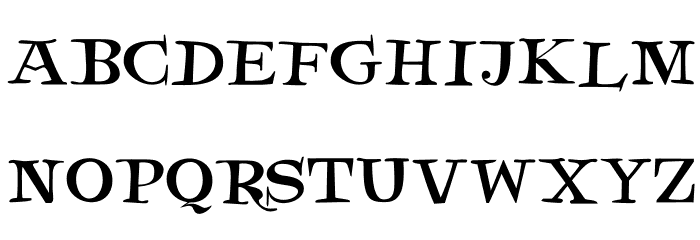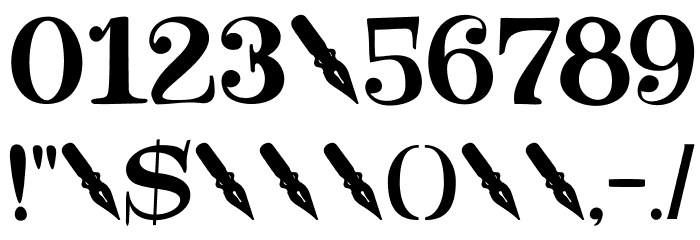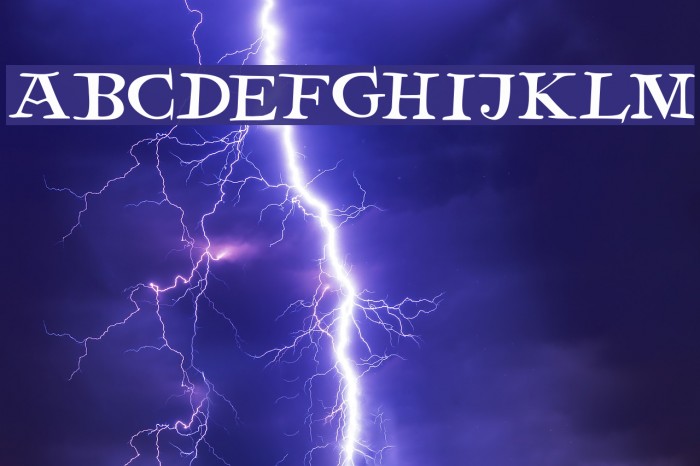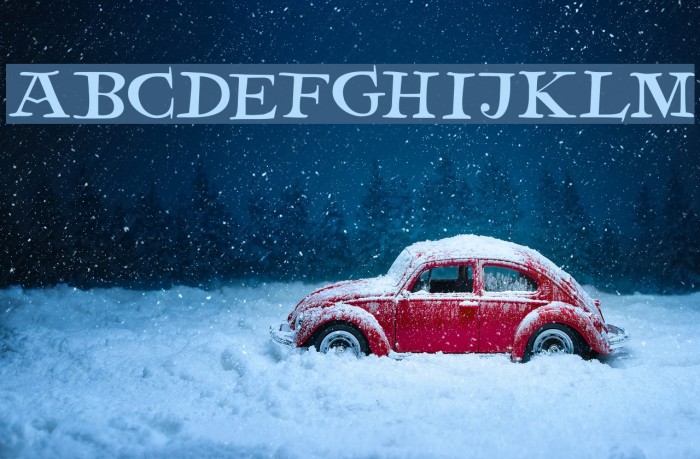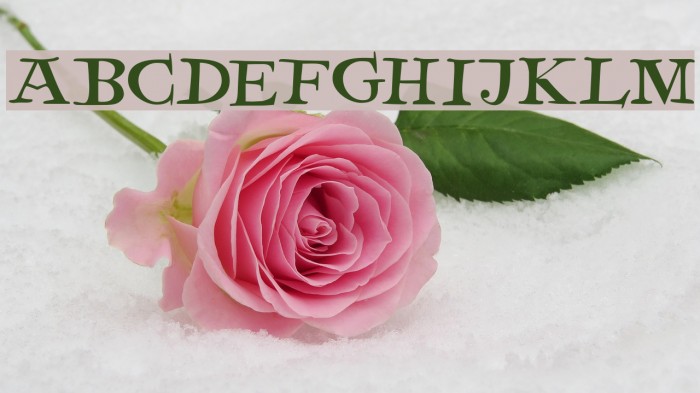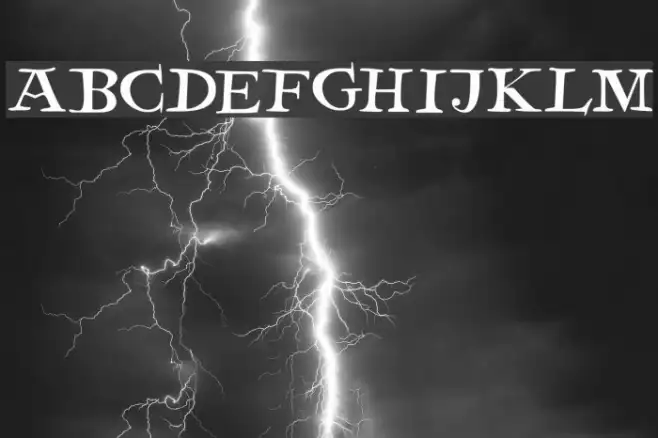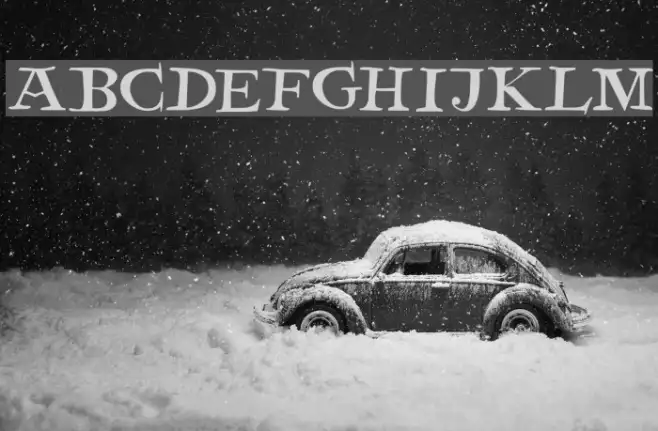
DK Henceforth Font
This font features a unique and artistic design with a calligraphic flair. The characters exhibit a high contrast between thick and thin strokes, giving them a dynamic and elegant appearance. The serifs are pronounced and add a touch of sophistication, while the overall style is reminiscent of traditional penmanship. The numbers and special characters maintain the same artistic quality, with some characters incorporating decorative elements that enhance their visual appeal. This font is suitable for projects that require a classic yet creative touch, making it ideal for invitations, branding, and artistic endeavors.
An artistic, high-contrast serif font with a calligraphic style.
- Proposed Projects: Ideal for invitations, branding, artistic projects, and decorative purposes.
- Category: Serif
- Use Case: Headlines, Logos, Artistic projects